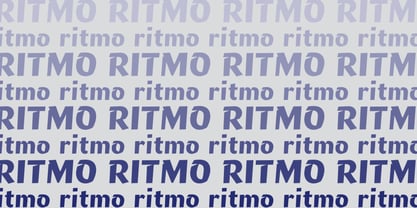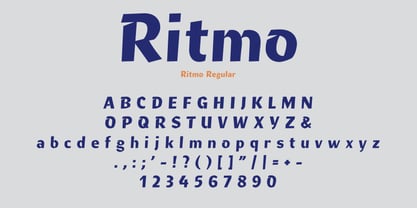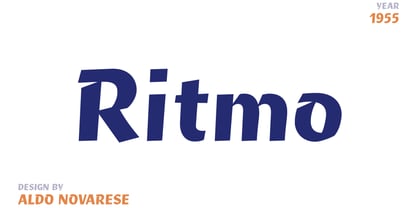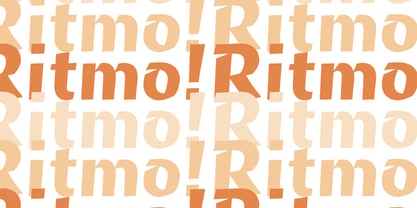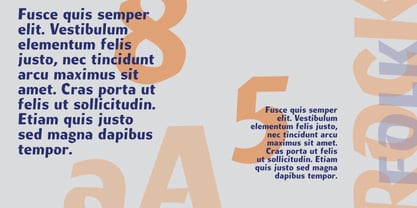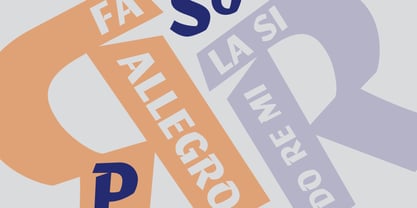
R41 Ritmo
Ritmo, originally designed by Aldo Novarese in 1955, stands out as a significant and expressive typeface ideal for advertising materials. Its unique forms make it perfect for creating a distinctive decorative effect. The design is uniformly compact, offering a captivating visual appeal. Despite its boldness, it maintains an effortless flow, making it a versatile choice for various creative applications.